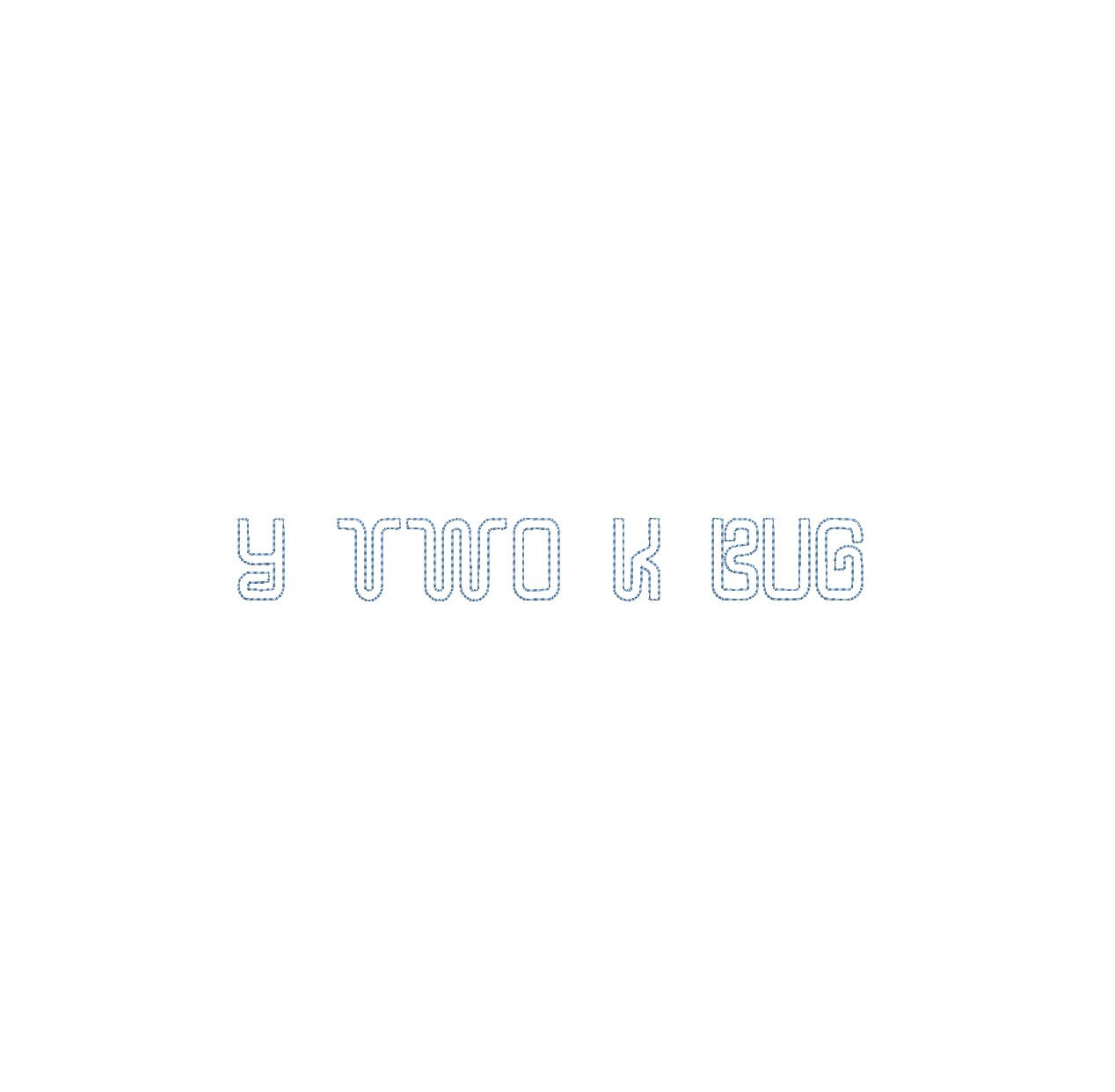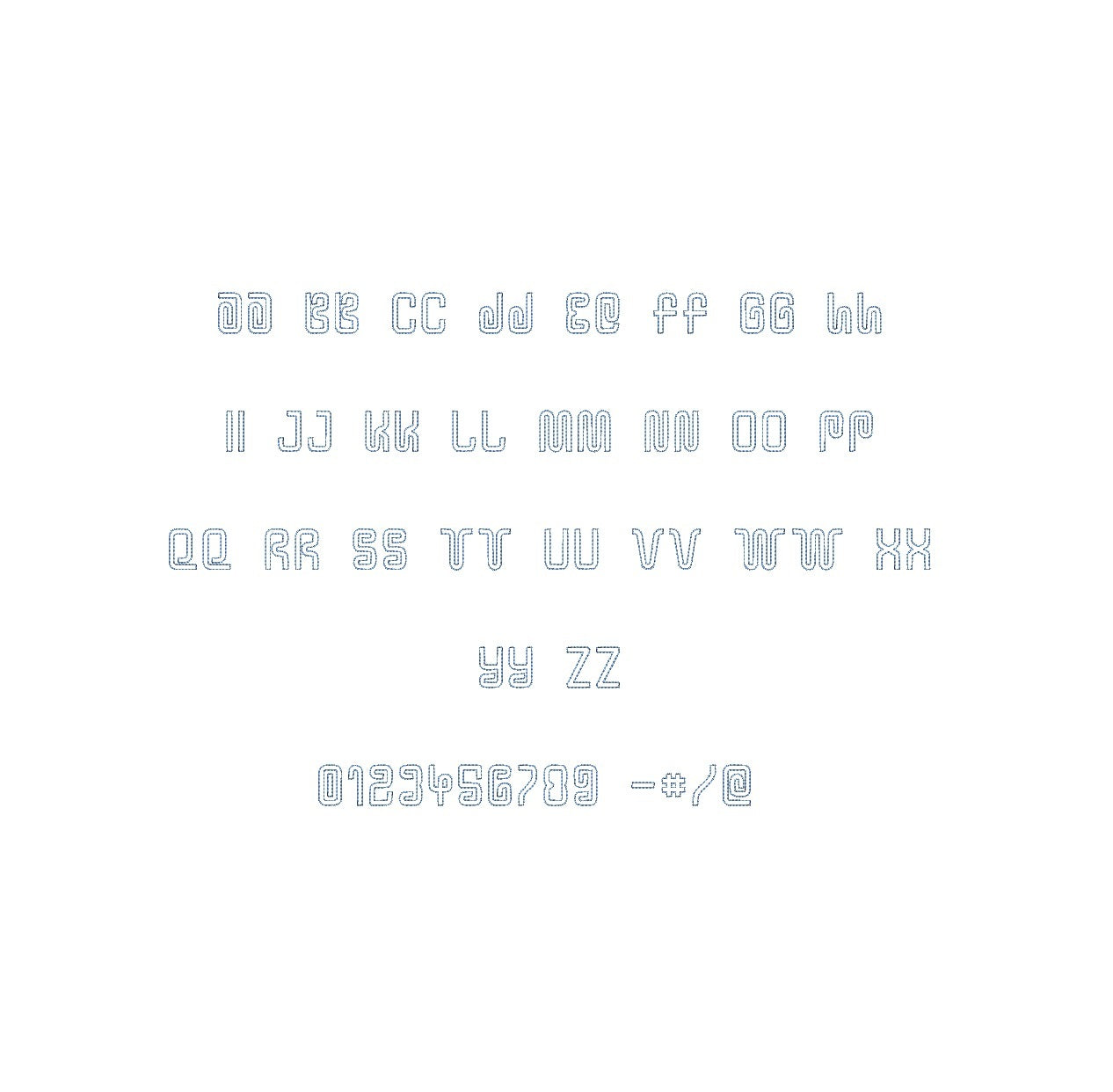
Elevate your embroidery with the Y Two K Bug Bean Outline ESA font, designed for compatibility with Wilcom Studio e4.5.6 and Hatch 3 versions and up. This font effortlessly merges futuristic vibes and precision, infusing your designs with a unique aesthetic perfect for contemporary monograms and embellishments. Experience seamless compatibility for exceptional results and unlock a new level of stitching finesse. Transform your creations into embroidery masterpieces that exude innovation and creativity. Elevate your projects with the Y Two K Bug Bean Outline ESA font and make your embroidery truly cutting-edge and unforgettable.